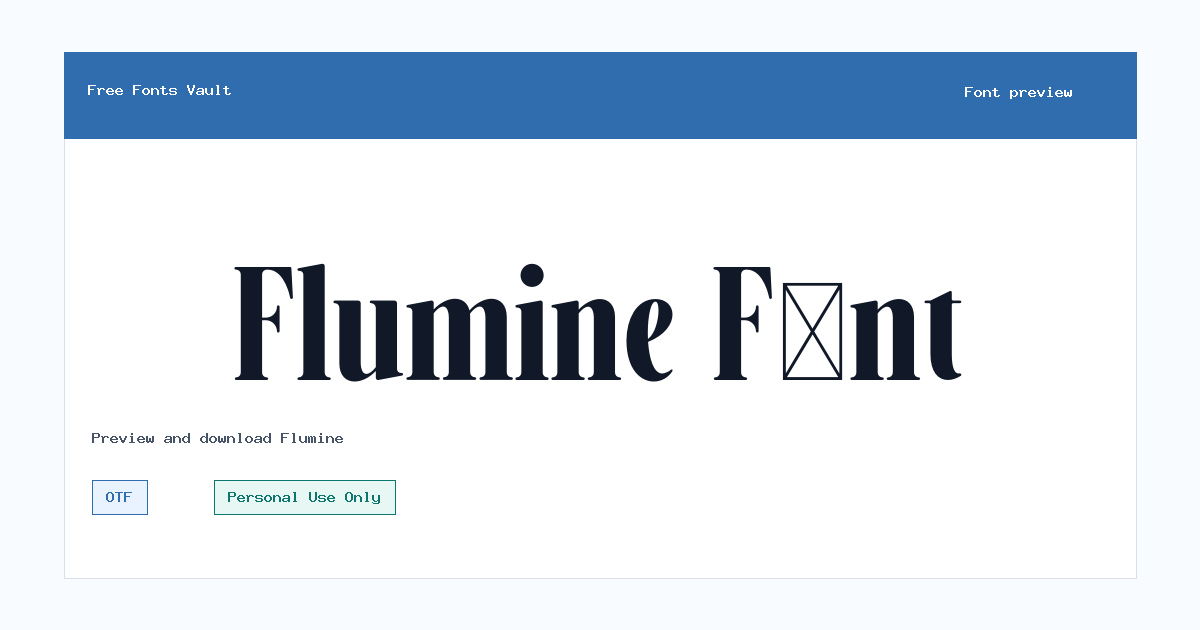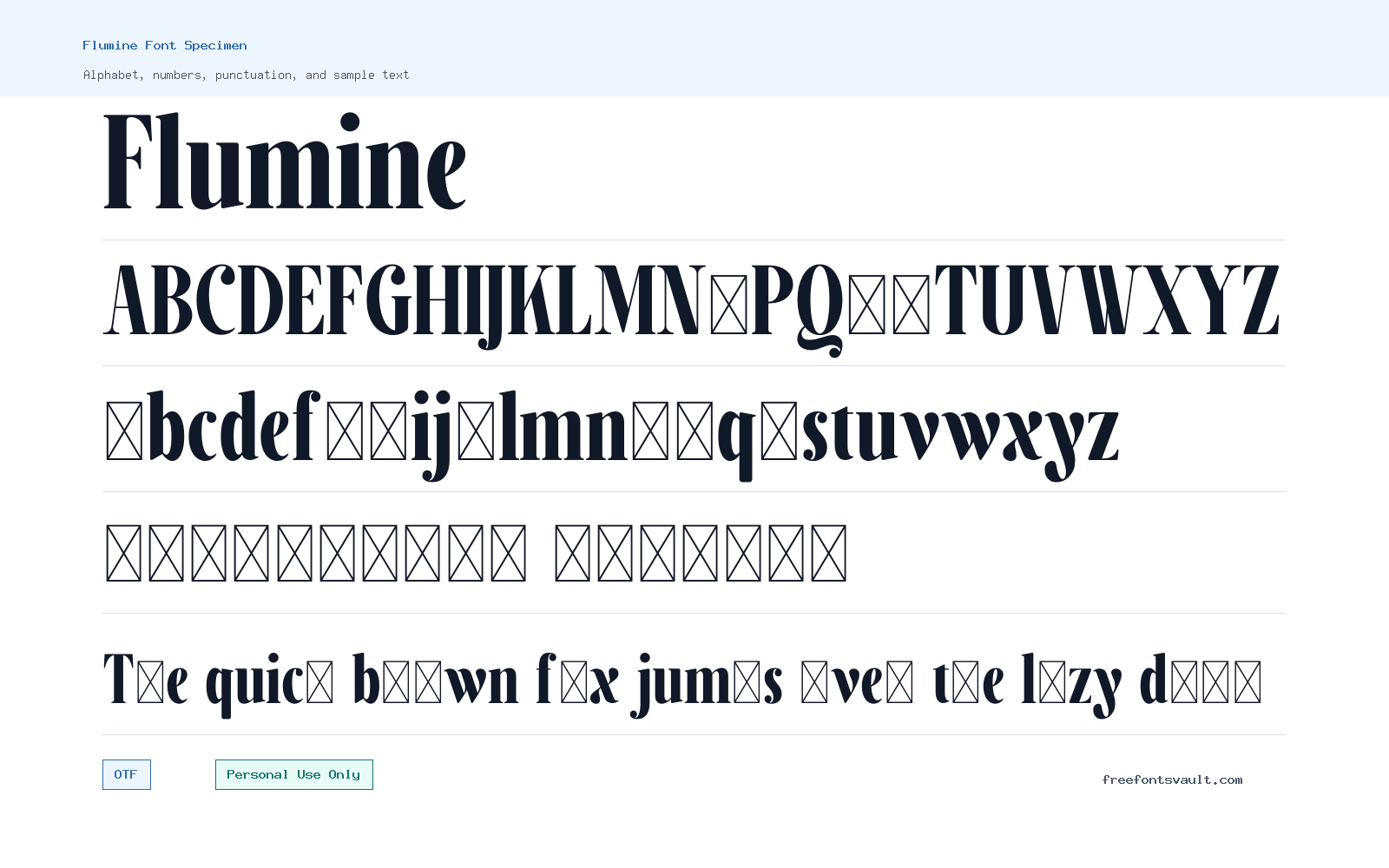
Flumine
Flumine Font
Flumine is a serif display font from Didik Saputra and Saber Studio, offered as an OTF demo font for personal-use projects. It is a good font to test when you want a refined serif look for short, polished text rather than long reading paragraphs.
About Flumine Font
Flumine works best when the words have room to breathe. Because it is presented as a serif font, it naturally fits design work where letter shape, contrast, and spacing matter more than plain utility. Try it first in names, headings, short quotes, poster titles, invitation lines, boutique-style labels, and logo mockups. A font like this usually carries more personality in a few words than in a full paragraph, so keep your sample text short while previewing it.
For logo work, test Flumine at several sizes before committing. Look at the spacing between letters, especially in words with narrow pairs, round letters, and capitals. If you are designing a poster or social graphic, give the font enough white space and avoid crowding it with too many decorative elements. For web mockups, use it as a headline or accent face and pair it with a quiet sans serif or a readable text serif for body copy. That keeps the design clear while letting Flumine handle the more expressive parts.
• Serif style suited to display text, names, headings, and short decorative phrases.
• A practical choice for previewing logo concepts, posters, invitations, branding drafts, and web hero text.
• Single regular variant, which makes it simple to test but limits weight and style options.
• Logo drafts and wordmarks that need a serif display style.
• Poster titles, event graphics, and social media headline artwork.
• Invitation designs, stationery previews, and elegant short text layouts.
• Website mockups where the font is used for hero headings or accent text.
Use Flumine where the text is short and visible. Start with a large headline size, then adjust tracking by hand if the wordmark feels too tight or uneven. For a cleaner layout, pair it with a simple sans serif for descriptions, menus, captions, and longer reading text. If you use it in a website mockup, keep it for headings and test fallback fonts separately, since the listed download is an OTF demo file rather than a complete webfont package.
Who designed Flumine?
Flumine is credited to Didik Saputra, with Saber Studio listed as the foundry.
What kind of font is Flumine?
Flumine is identified as a serif font. It is best approached as a display choice for short text such as titles, names, posters, and logo concepts.
Is Flumine good for body text?
Use it carefully for long text. A serif display font is usually stronger in headings, names, and short phrases. Pair it with a more neutral font for paragraphs.
What fonts pair well with Flumine?
Start with a clean sans serif for body copy, captions, and interface text. If you prefer an all-serif layout, choose a plain, highly readable serif for paragraphs so Flumine can stay focused on display text.